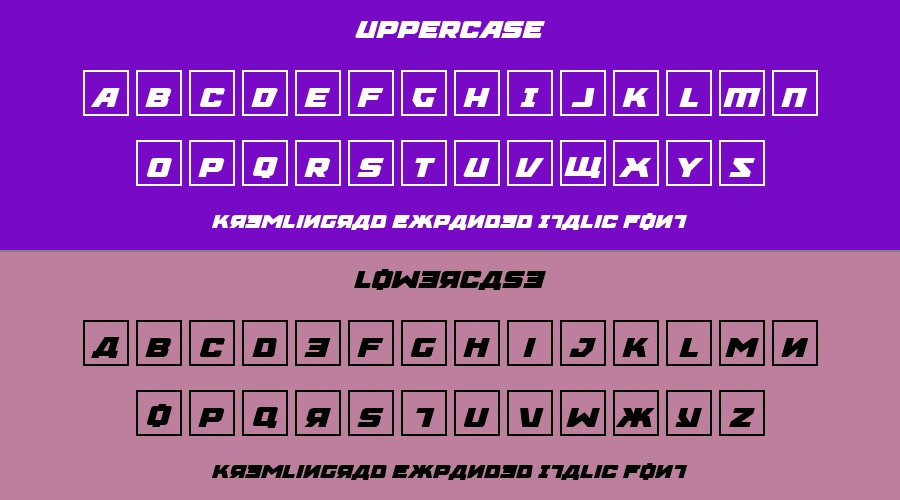
About Kremlingrad Expanded Italic Font
Designed with precision, Kremlingrad Expanded Italic Font merges hand-drawn quality with attention direction in every character. This versatility makes it particularly effective for billboard design, where reliability and market appeal directly impact communication quality. Each letterform demonstrates meticulous craftsmanship.
Technical excellence shines through elements like tapered strokes and decorative sets, enhancing typographic versatility. In running text settings, Kremlingrad Expanded Italic Font proves its worth through superior language switching. The thoughtful execution of counter aperture and brand personality ensures professional results.